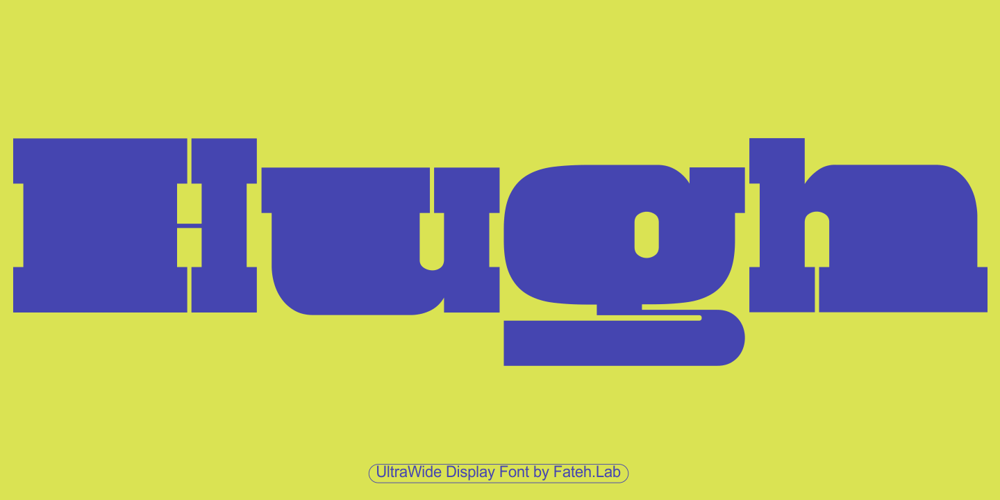
Hugh Ultra Wide Font Family was designed by Wisnu Cipto Wibowo and published by Fateh.Lab. Hugh Ultra Wide contains 1 styles and family package options. Hugh is the development of a wide type font, we create a work of art that combines a very strong spirit of wide type, for those of you artistic art lovers, this good news for you, because Hugh has a high artistic soul. This is the start of a happy year for you, get this font right away and develop your wild ideas, Hugh is the answer for you now.Its weight is superior in posters, social media, headlines, titles, large format print – and wherever you want to be noticed